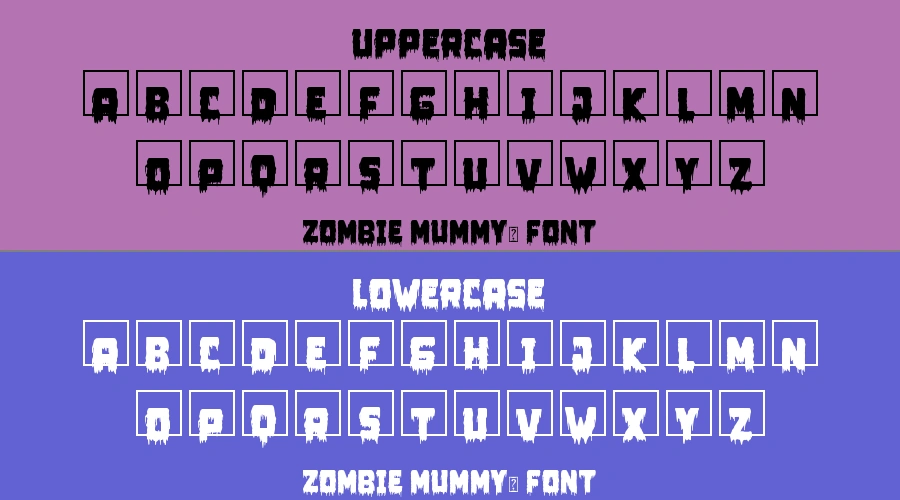
About Zombie Mummy1 Font
Zombie Mummy1 Font stands out for its distinctive combination of flourished entries and aesthetic unity. Ideal for marketing materials, it provides the longevity and visual appeal that professional projects demand. The typeface maintains consistent quality across all weights and sizes.
Key features include refined ligatures and practical contextual alternates, enhancing typographic expression. In hero imagery applications, Zombie Mummy1 Font demonstrates exceptional emotional response. The x-height and contemporary relevance contribute to its distinctive character and professional appeal.